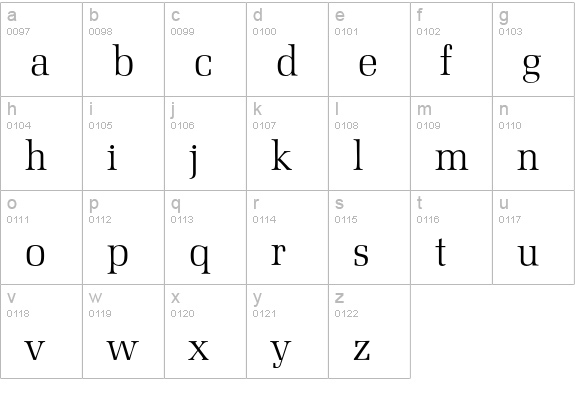
Marseille-Light is a refined, elegant variant in the Marseille typeface family \xE2\x80\x94 well suited to elegant body text, refined sub-headings, and luxury branding.
Marseille-Light font is a stunning typeface that effortlessly combines elegance and simplicity. With its clean and modern design, this font is perfect for a wide range of creative projects, including logos, branding, headlines, and more. The Marseille-Light font features a harmonious balance of thin strokes and generous spacing, creating a visually pleasing and easy-to-read experience. Its refined curves and graceful letterforms give it a timeless appeal, making it a versatile choice for both digital and print designs. One of the most appealing aspects of Marseille-Light font is that it is completely free. You can freely download this font at FontsMarket.com, a trusted source for high-quality fonts. This means that you can use Marseille-Light font in your personal and commercial projects without any cost or restrictions. Whether you're a graphic designer, a web developer, or simply someone looking to enhance your creations with a touch of sophistication, Marseille-Light font is a must-have. Its versatility, elegance, and the fact that it is freely available to download make it an excellent addition to your font collection. Download Marseille-Light font today from FontsMarket.com and elevate your designs to new heights with this exceptional typeface.